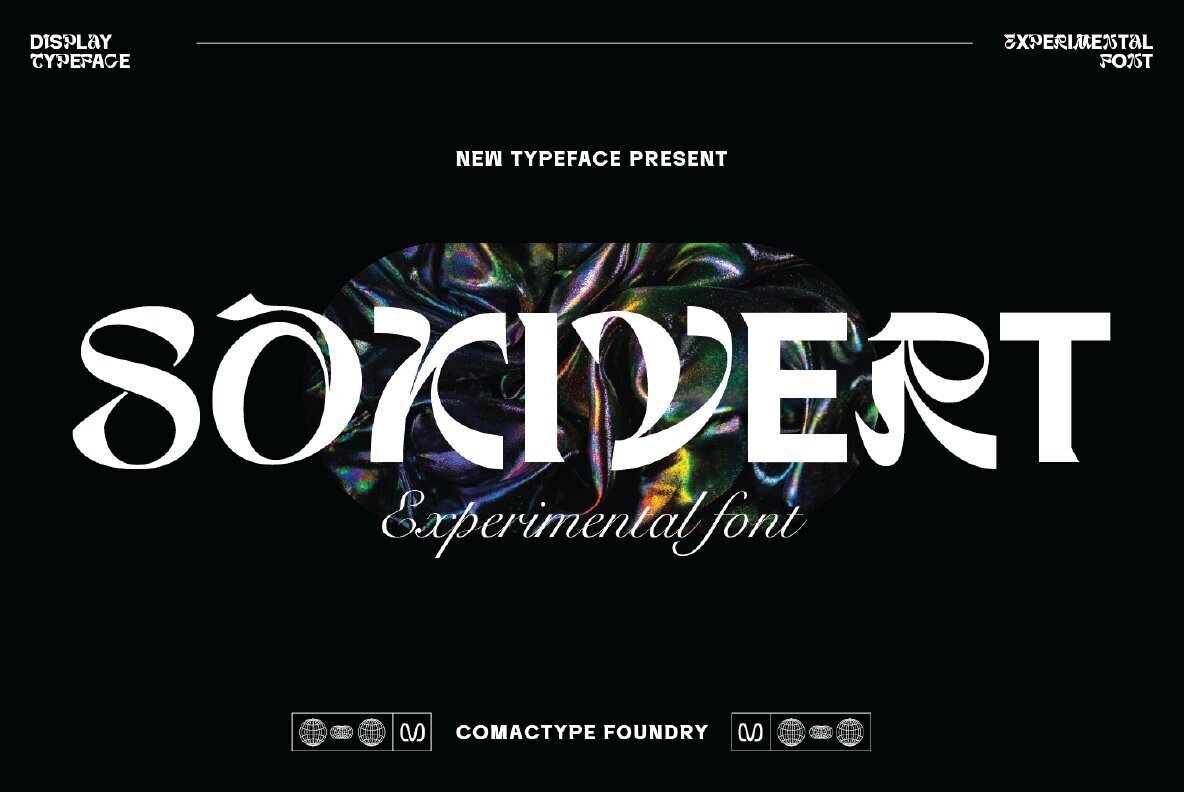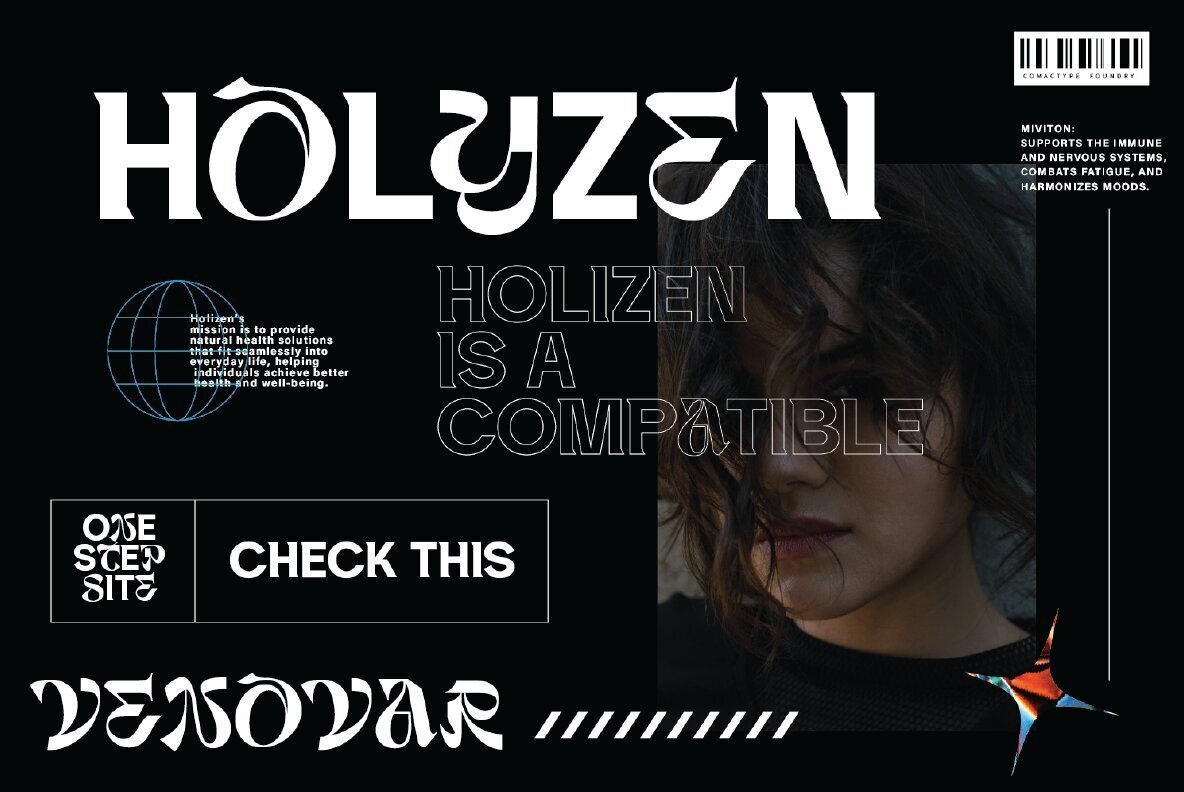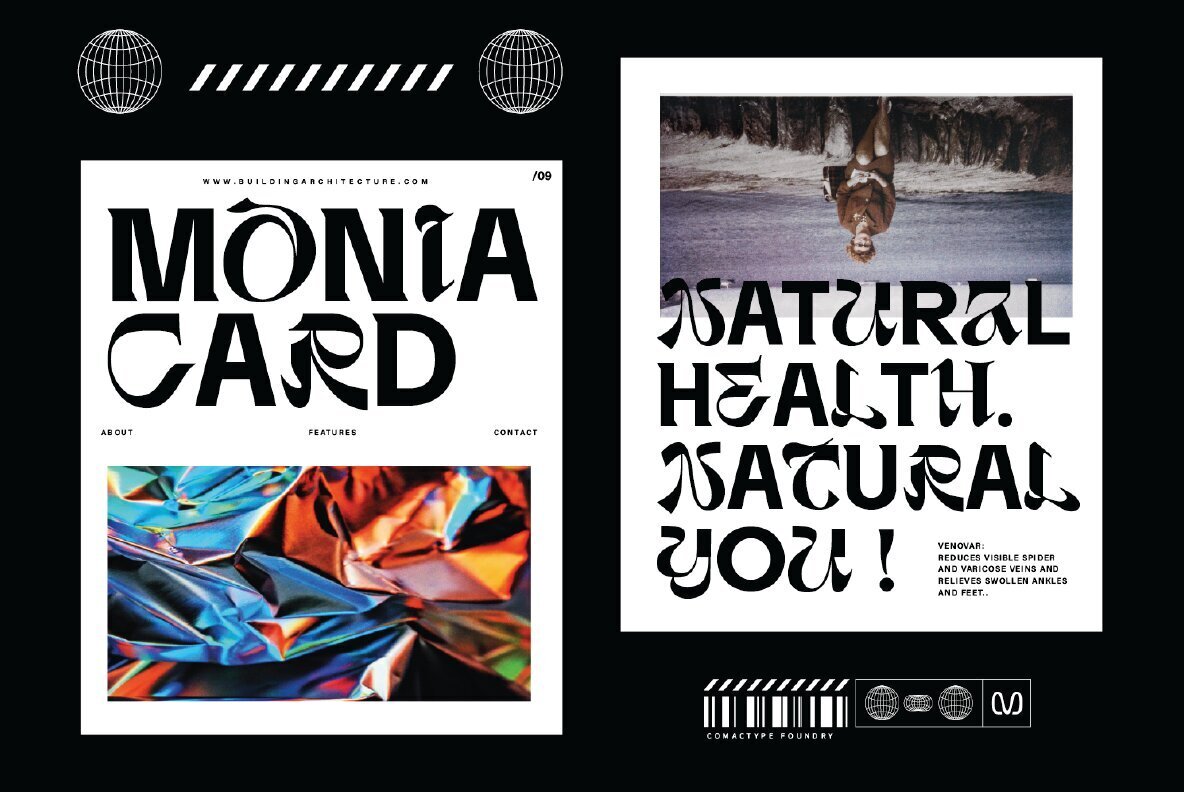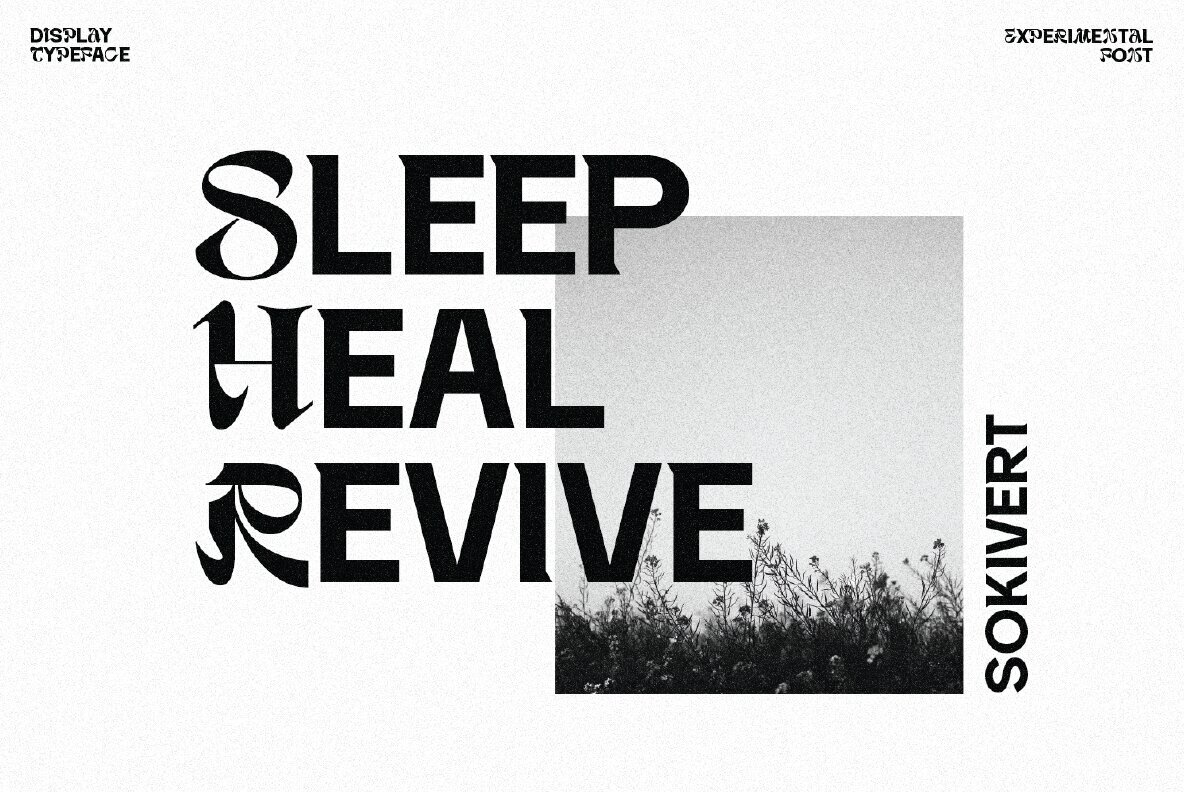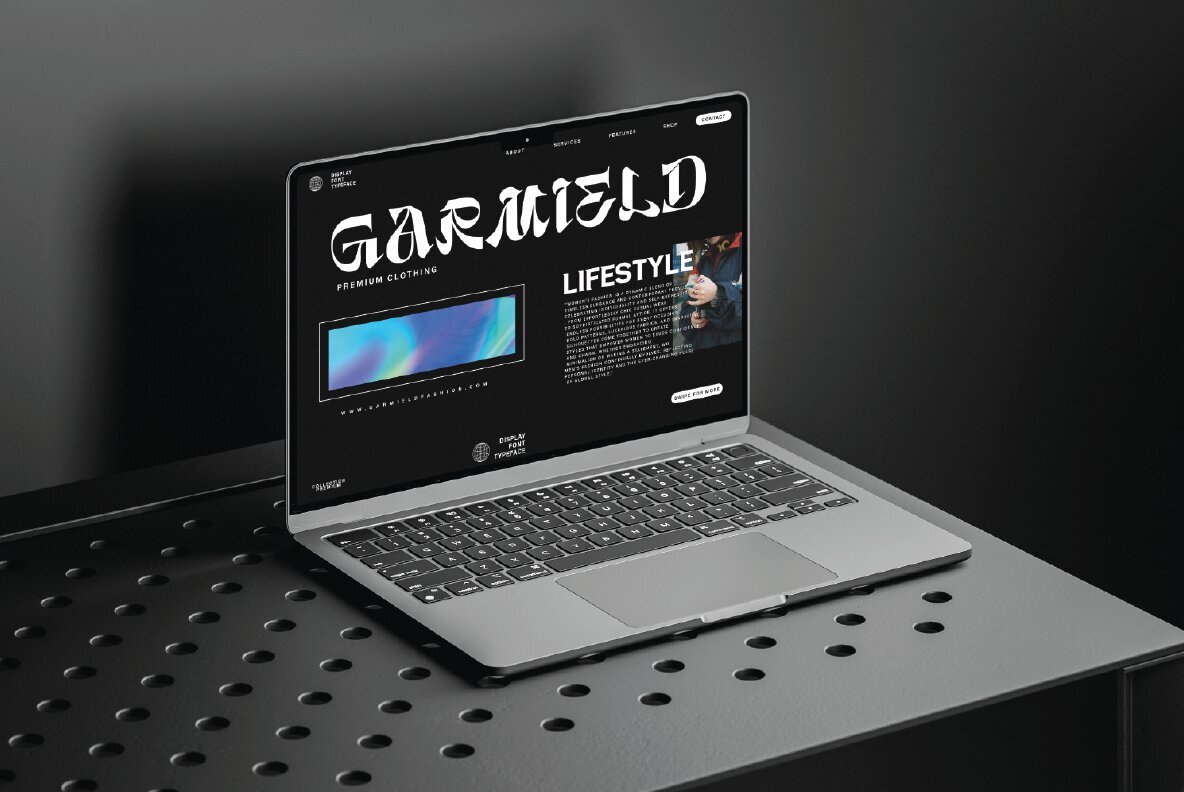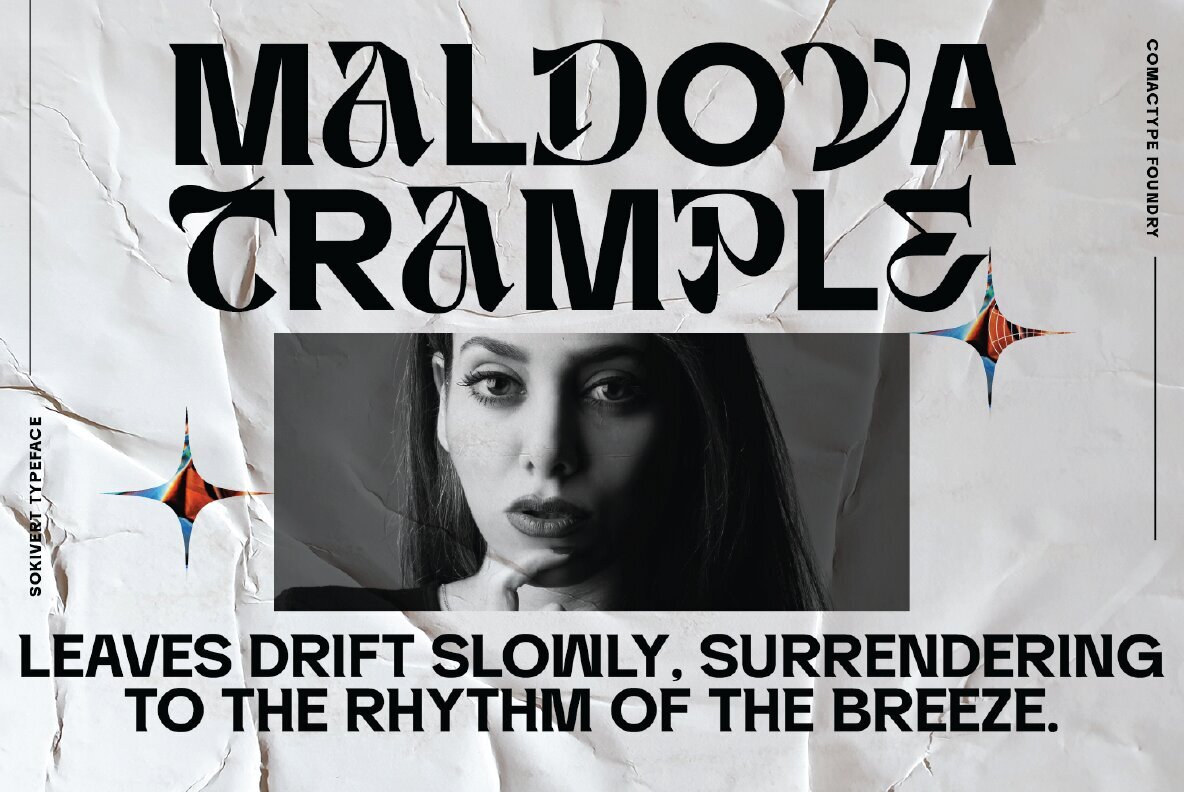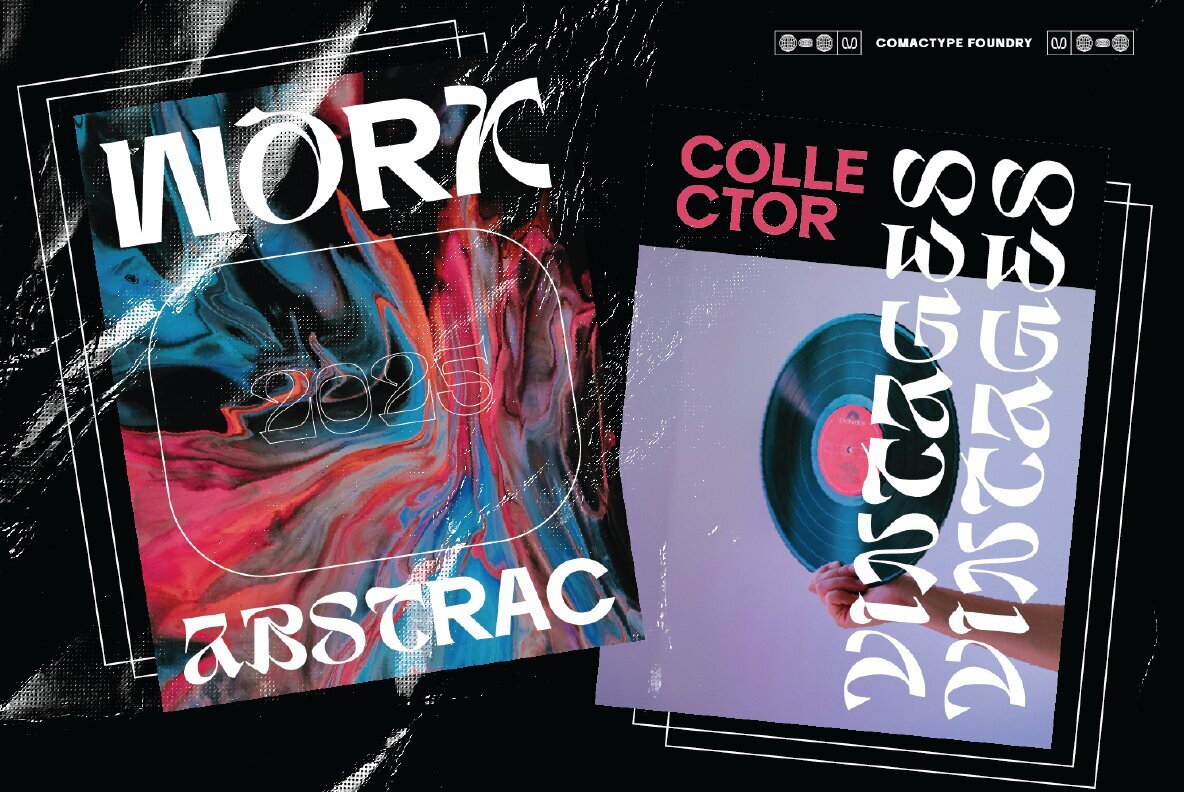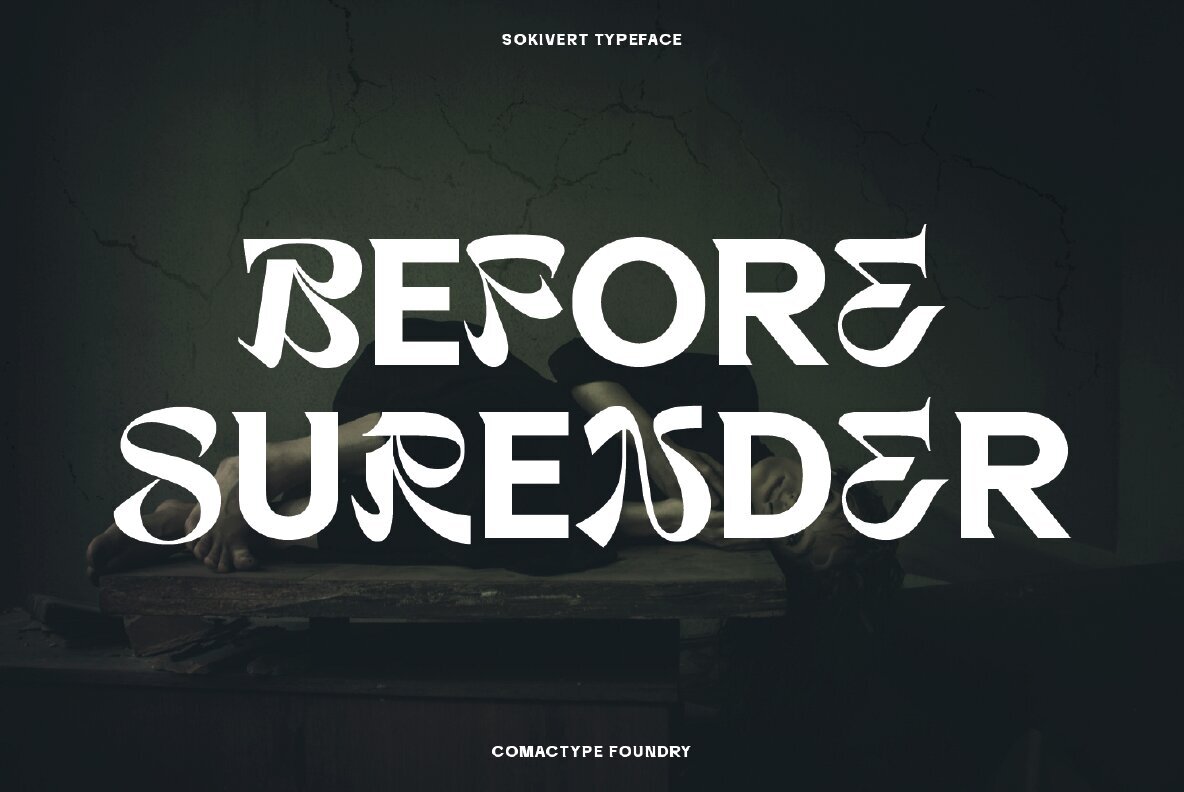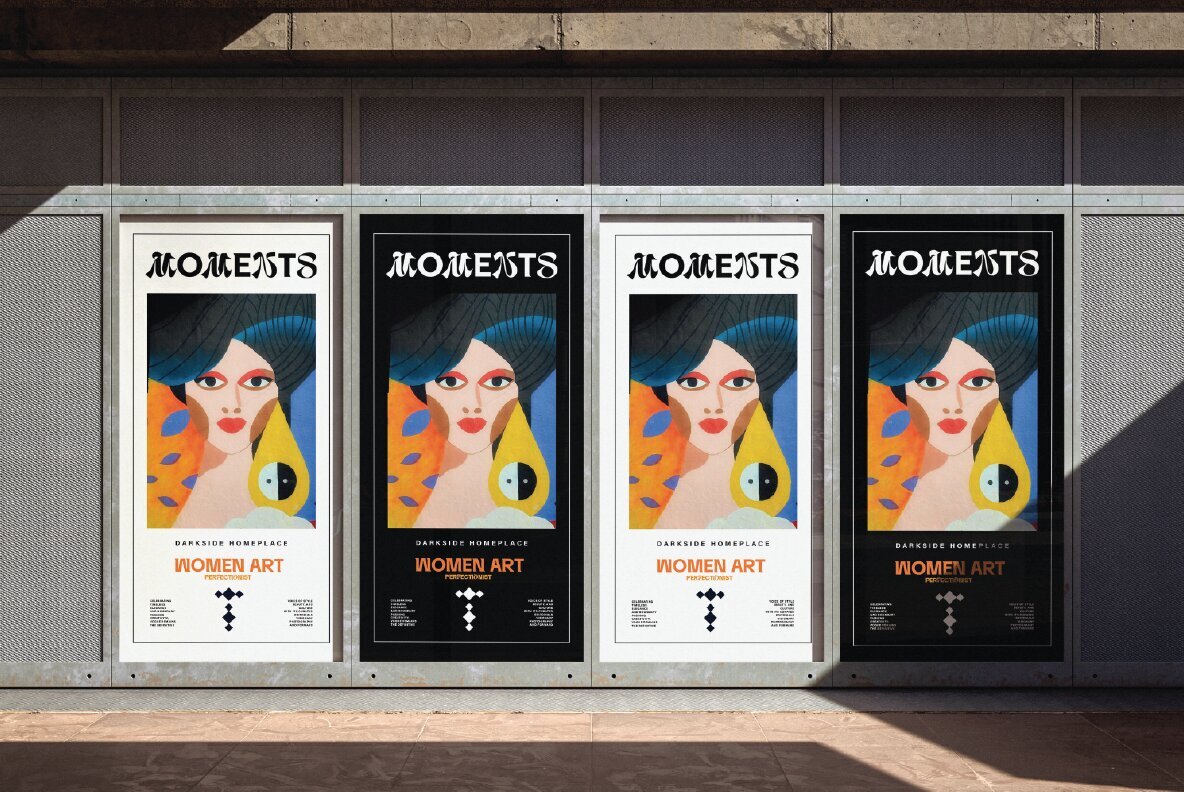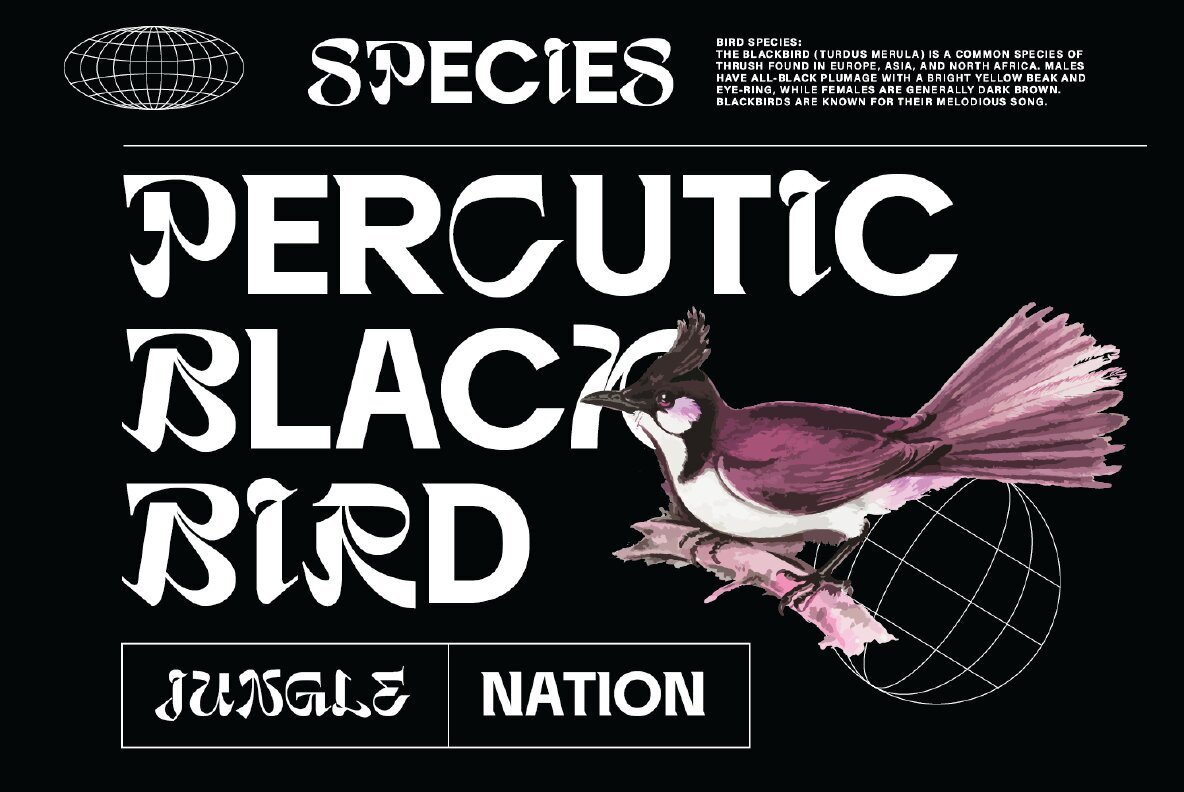
Sokivert Font
Sokivert Regular
Sokivert
Discover Sokivert, an innovative typeface by Comac Type Foundry that merges avant-garde design with a futuristic aura. This experimental font offers two distinct styles that cater to a wide range of creative projects. The lowercase is characterized by its bold, minimalistic appearance, featuring strong geometric shapes that command attention. In contrast, the uppercase style breaks conventional boundaries with expressive cuts and decorative curves that add a touch of artistry and flair.
Sokivert’s dynamic versatility makes it an excellent choice for diverse applications, from branding and posters to album covers and striking editorial layouts. The unique fusion of retro-futuristic and contemporary aesthetics ensures both readability and a captivating visual allure, making it ideal for design-savvy audiences seeking a typeface that stands out yet remains functional.
- Lowercase Style: Bold and minimalistic with robust geometric shapes.
- Uppercase Style: Expressive with unique cuts and decorative curves.
- Applications: Perfect for branding, posters, album covers, and bold editorial design.
- Aesthetics: A blend of retro-futuristic and modern elements.
Elevate your design projects with Sokivert, a typeface that embodies innovation and artistic expression.